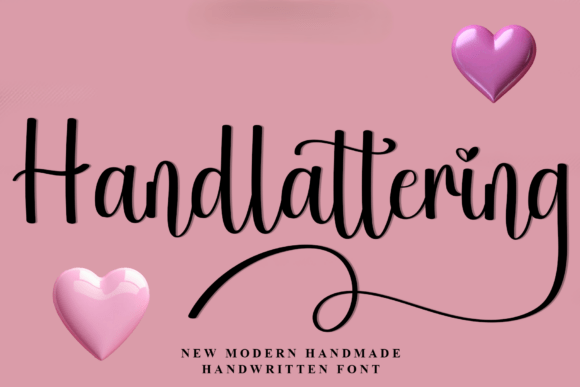
Discover the Charm of Handlattering Font
Have you ever sat at your desk, surrounded by blank paper and a blank mind, struggling to find the perfect font to bring your creative vision to life? This is a moment many designers can relate to. It’s a moment of frustration, of searching for that one font that will make your design stand out from the crowd.
Enter the Handlattering Font, a beautiful and eye-catching font designed to add a soft, unique touch to your designs. With its distinctive strokes and versatile characters, this font is perfect for a wide range of creative projects, from graphic design to crafting and beyond. Whether you’re working on a personal project or a commercial design, the Handlattering Font is a valuable asset that will elevate your designs and make them appealing to a wide audience.
Handlattering Font Key Features
- Font Family: Handlattering, Handlattering Italic, Handlattering Bold, Handlattering Bold Italic
- Unique Characteristics: Handlattering Font features a unique blend of elegant and rustic elements, making it perfect for creating a vintage or antique look in designs.
Handlattering Font Review
Initially, I was drawn to the unique blend of modern and vintage elements in Handlattering Font. ✨ The subtle imperfections and textured feel add an organic touch that can elevate any design project. ✨ The font’s versatility allows it to work well in a variety of contexts, from titles to body text.
However, upon closer inspection, I noticed some limitations. ⚠️ The font’s legibility can be compromised when used in smaller sizes or at low resolutions. ⚠️ Additionally, the font’s weight range is somewhat limited, which can make it difficult to achieve a consistent visual flow.
- Unique blend of modern and vintage elements
- Subtle imperfections and textured feel
- Versatile and suitable for various design contexts
- Includes multiple weights and styles
Overall, I would say that Handlattering Font is a solid choice for designers looking to add a touch of personality to their projects. While it may not be suitable for every project, its unique character and versatility make it a valuable addition to any design toolkit.
Tip: Use Handlattering Font for creative headings and titles to add a touch of elegance to your designs.
Tip: Use Handlattering Font for creating custom logos, typography-based art, and other creative projects.
Tip: Use Handlattering Font for creating eye-catching presentations and documents.
Handlattering Font is ideal for:
- Creative headings and titles
- Custom logos and typography-based art
- Presentation and document design
Great Vibes is a beautiful, elegant font that is perfect for use in headings, titles, and other display text. It has a classic, sophisticated feel that is ideal for luxury branding and high-end design projects.
Great Vibes is similar to Handlatterling Font in its elegant feel, but has a more relaxed and casual appearance. While Handlatterling Font is more formal and traditional, Great Vibes is better suited for brands that want to convey a sense of relaxation and sophistication.
What is the recommended line spacing for Handlattering Font?
The recommended line spacing for Handlattering Font is 1.2 to 1.5 times the font size. This will provide sufficient space between lines and improve readability. You can adjust the line spacing according to your design needs, but this range is a good starting point.